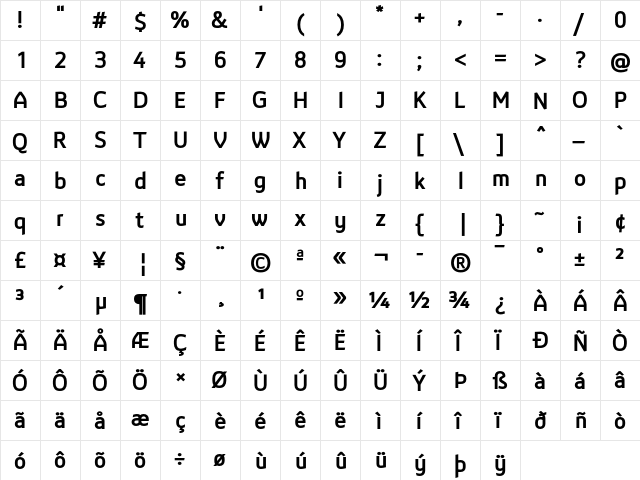
LT Reponse Bold
Design Context for LT Reponse Typeface
LT Reponse takes a measured approach to typography — its balanced proportions and neutral character make it a reliable workhorse for both digital and print work. The heavy weight commands attention and anchors typographic hierarchies.